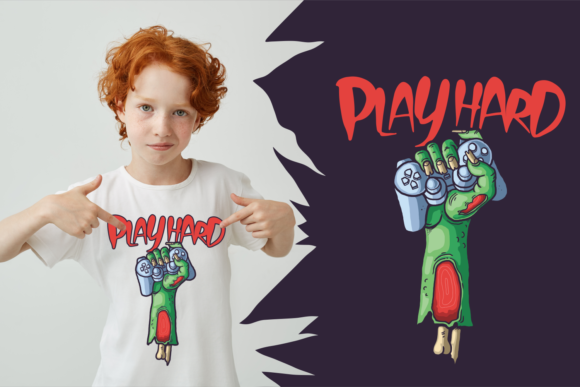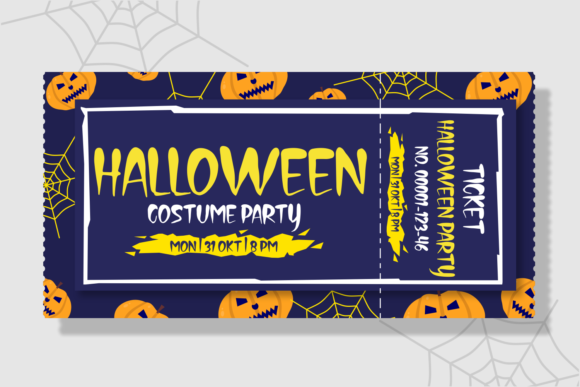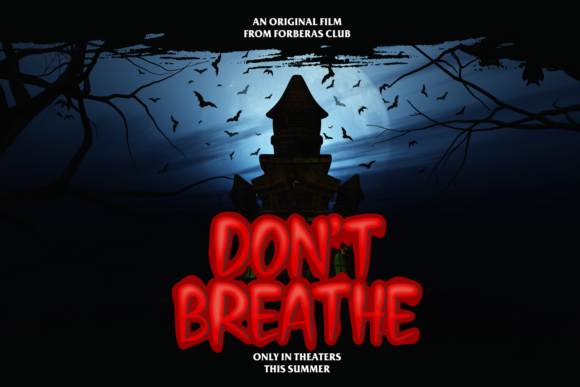
Introduction to Creepy Face Font
Creepy Face is a cool, spooky and fun display font.
It can easily be added to your Halloween designs or October parties The only limit is your imagination.